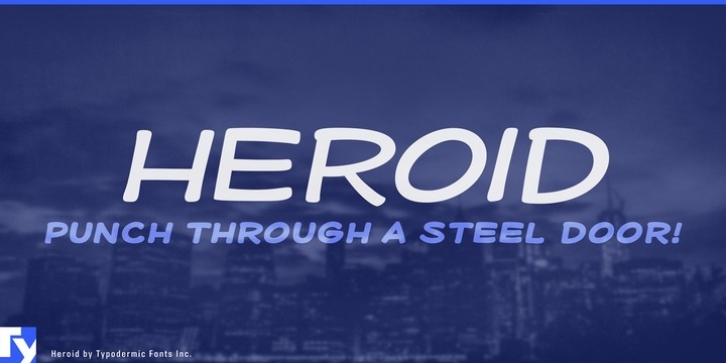
Heroid was designed by Ray Larabie and published by Typodermic. Heroid contains 2 styles and family package options.
Heroid proudly flexes its letterforms in regular and bold. Endowed with a selection of alternate caps, this is one super typeface strong enough to punch its way through a steel door.